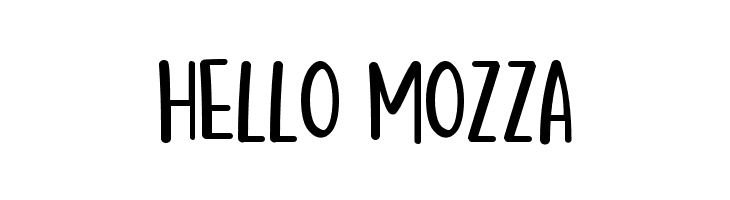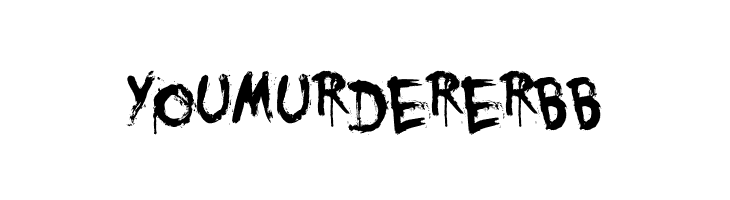
A bold, geometric collection of symbols and shapes within squares.
A decorative font with letters inside gravestone shapes, ideal for spooky themes.
A playful font with skunk illustrations in bold uppercase letters.
A bold, textured font with a brush stroke appearance, perfect for artistic designs.
A bold, playful font with a handcrafted, vintage feel.
A modern, geometric font with clean lines and rounded corners, perfect for a sleek, technical look.
A distressed, industrial font with a vintage, weathered look.
A bold, angular font with a dynamic, graffiti-inspired style.
A bold, playful font with a hand-crafted, irregular design.
A bold, italicized modern sans-serif font with clean lines and a dynamic slant.
A bold, flowing script font with elegant, connected characters.
A playful, hand-drawn font with decorative, stitched-like details.
A modern, geometric font with thin lines and a clean, minimalist style.
A bold, geometric font with an industrial and futuristic style.
A bold, italicized font with a modern and dynamic style.
A geometric, angular font with intersecting lines and a bold, modern style.
A bold, italicized font with a dynamic and sporty style.
A modern, cursive script font with bold, flowing characters.
A modern, geometric sans-serif font with a clean and bold appearance.
A bold, handwritten font with a playful and energetic style.
A playful, modern font with continuous, flowing lines and a whimsical touch.
A bold, modern font with clean lines and strong legibility.
A playful, hand-drawn font with bold strokes and a whimsical style.
A tall, narrow, hand-drawn font with a unique and artistic style.
A geometric, modern font with bold, clean lines and a futuristic style.
A bold, extended font with a dynamic slant and sharp angles.
A bold, playful font with rounded edges and a graffiti-inspired style.
Bold and italicized font with a modern and dynamic style.
An ornate and decorative script font with intricate swirls and flourishes.
A bold, italicized monospaced font with a modern, dynamic style.
تحظى GeoType, KR Gravestone, Smelly, TRACK Normal and LAKAMEALEON بشعبية لخطوطها النظيفة وتطبيقاتها الواسعة — من الهوية البصرية إلى الصفحات المقصودة والملصقات.